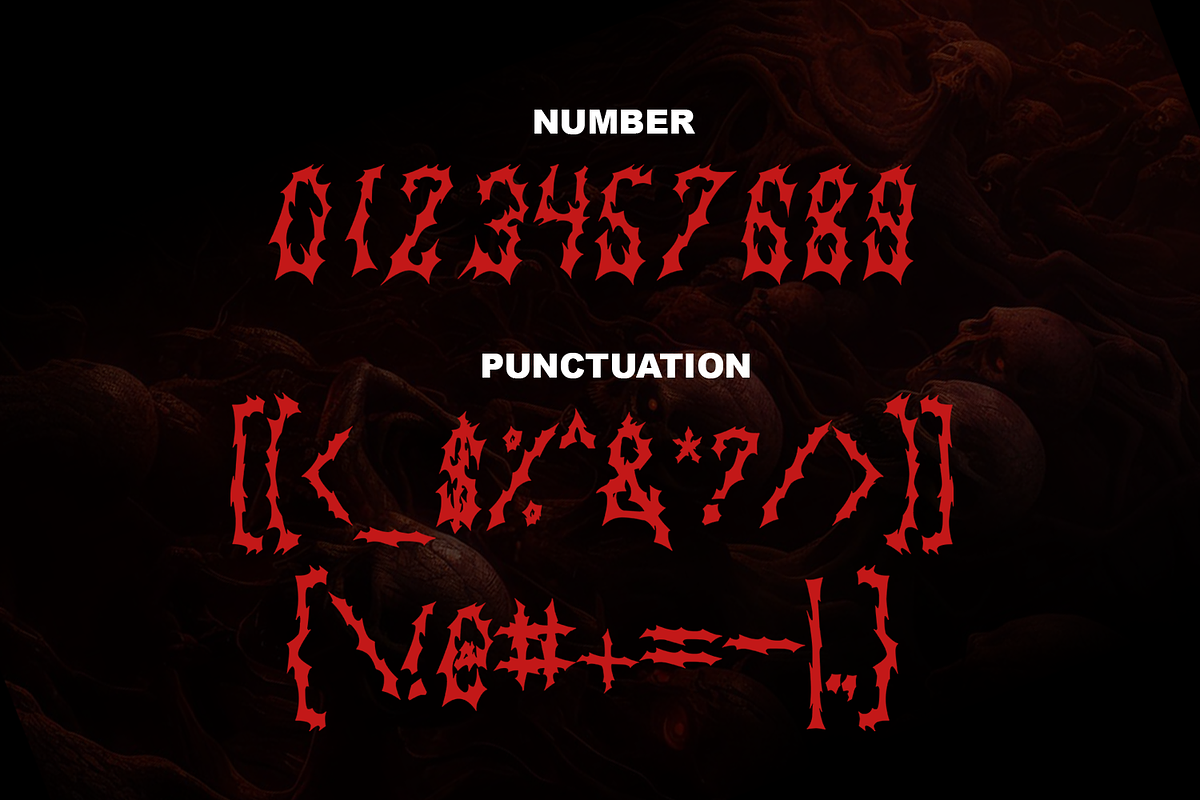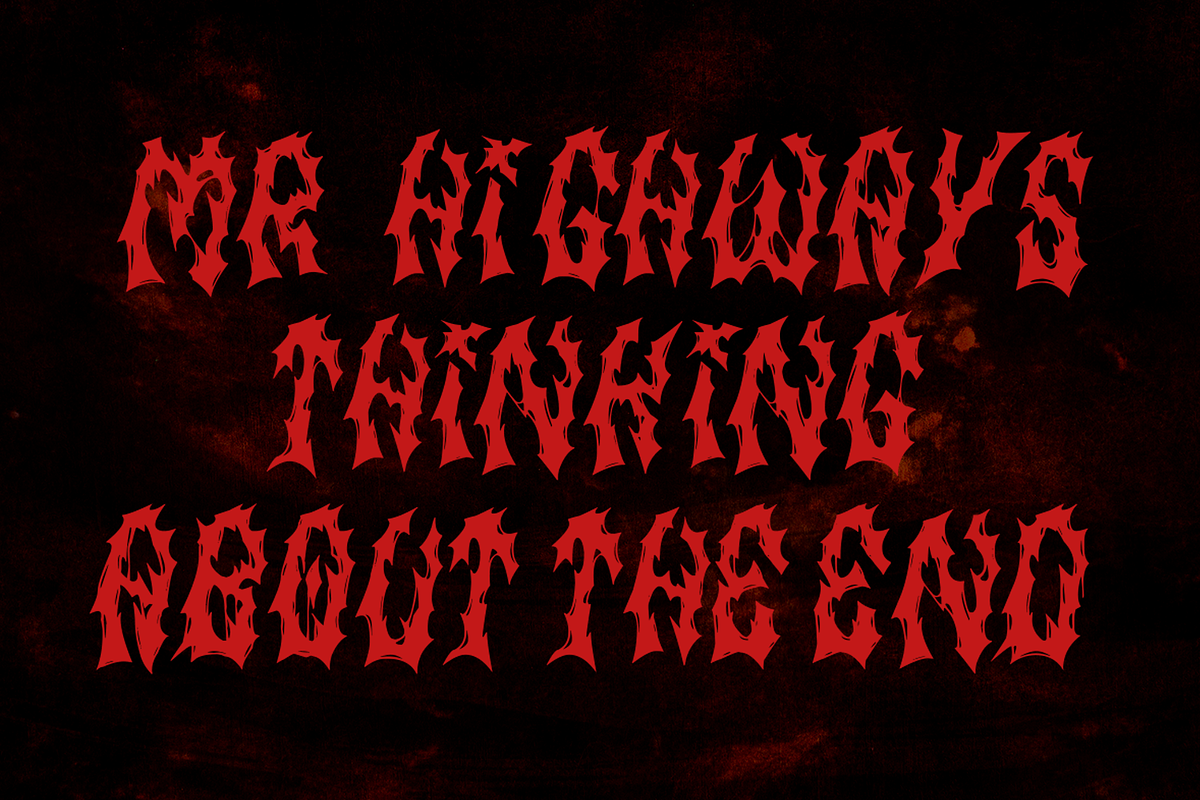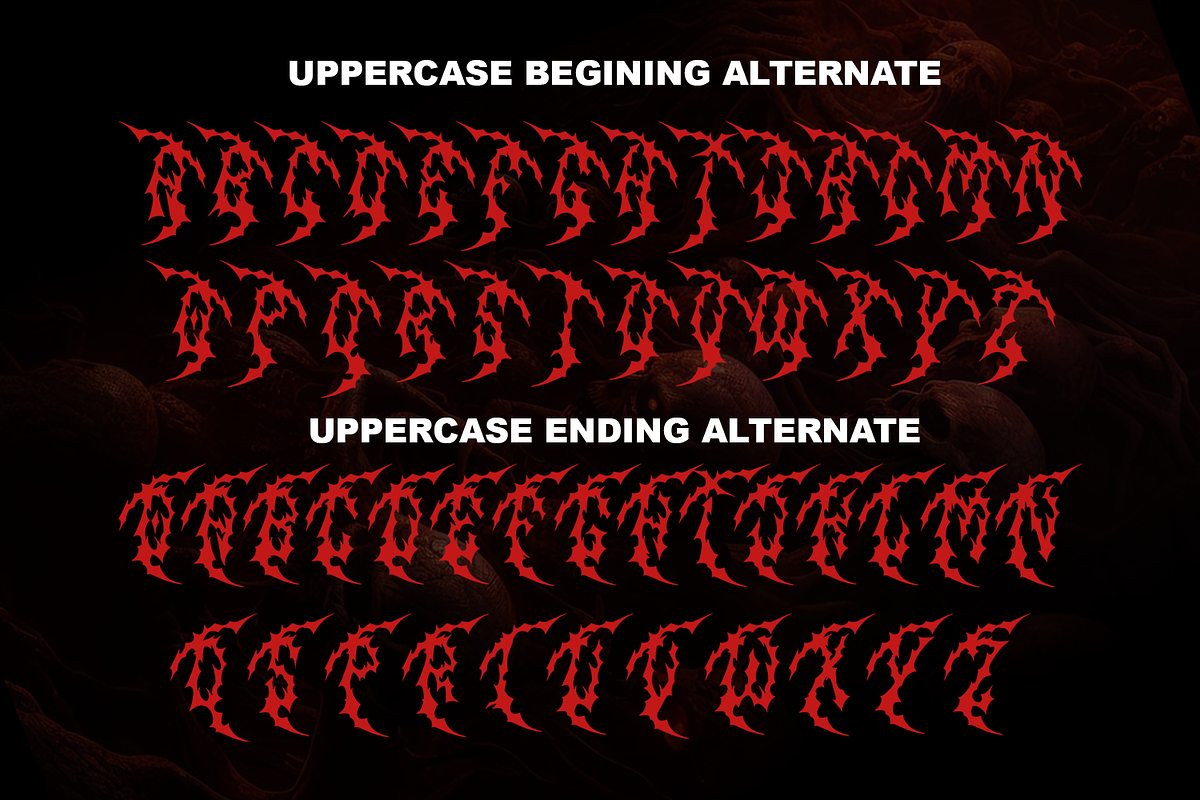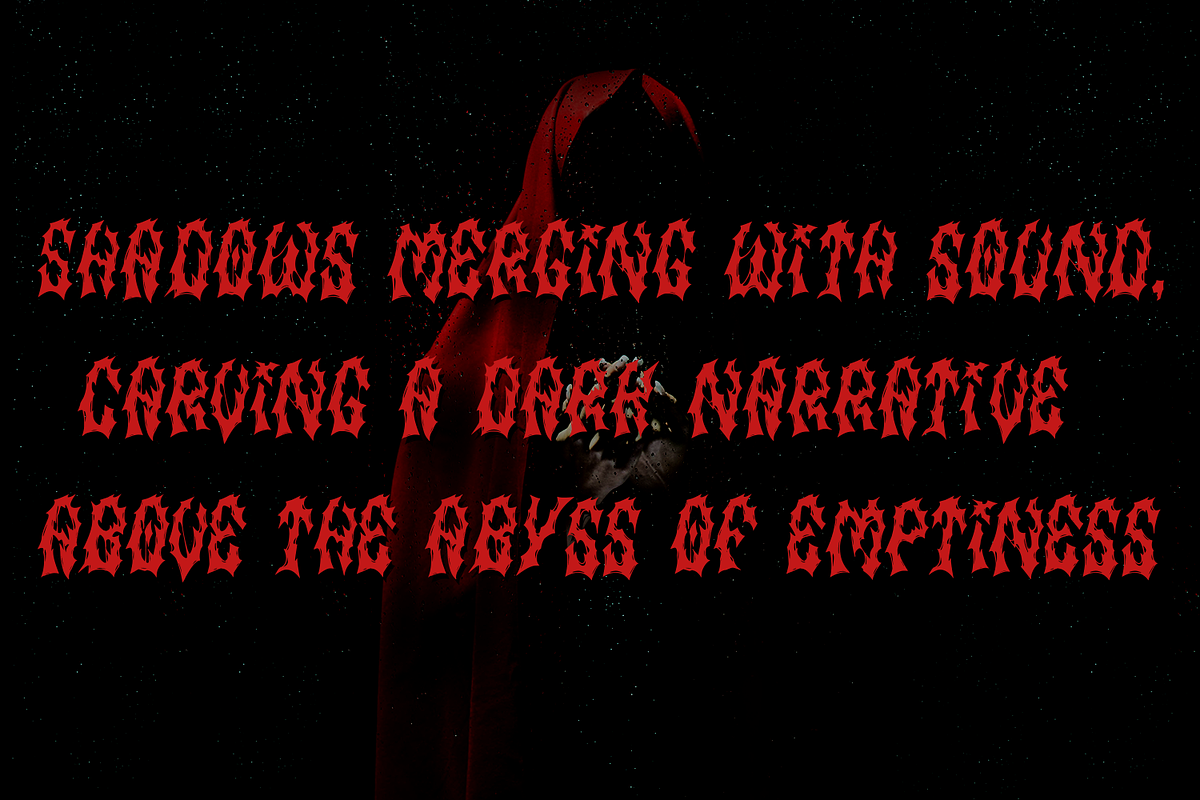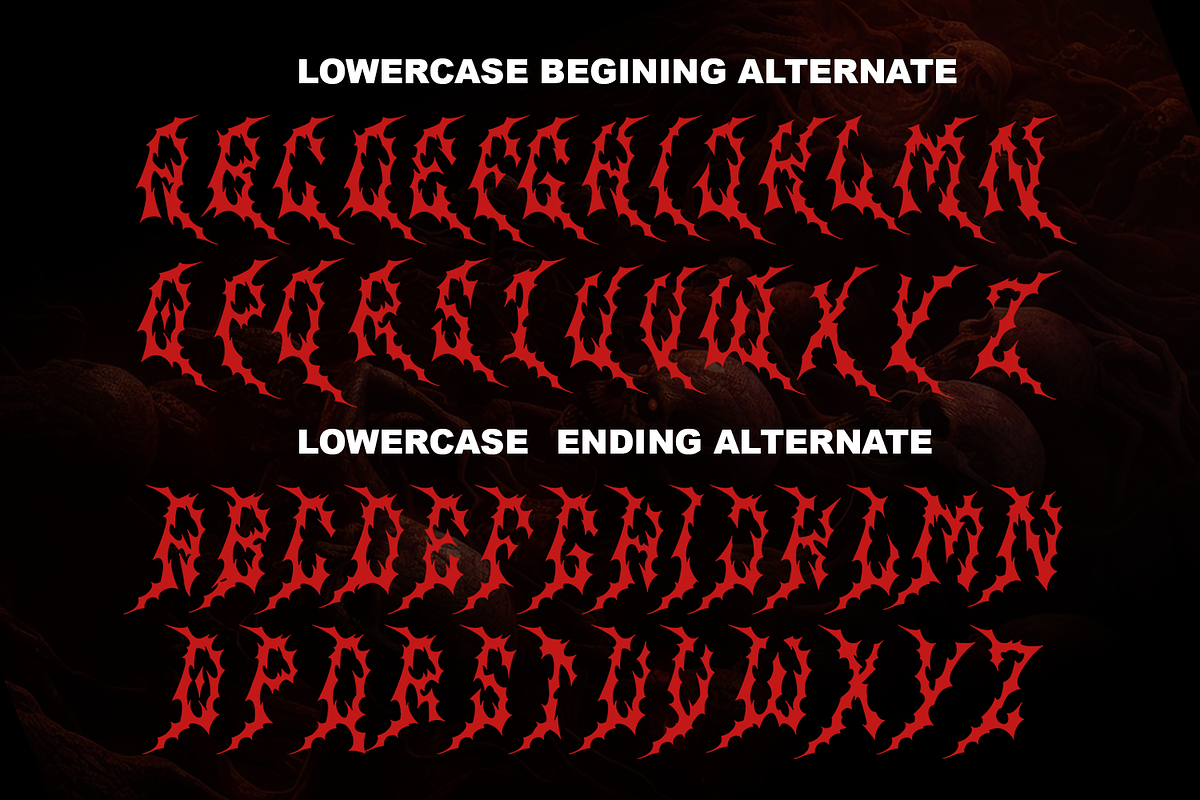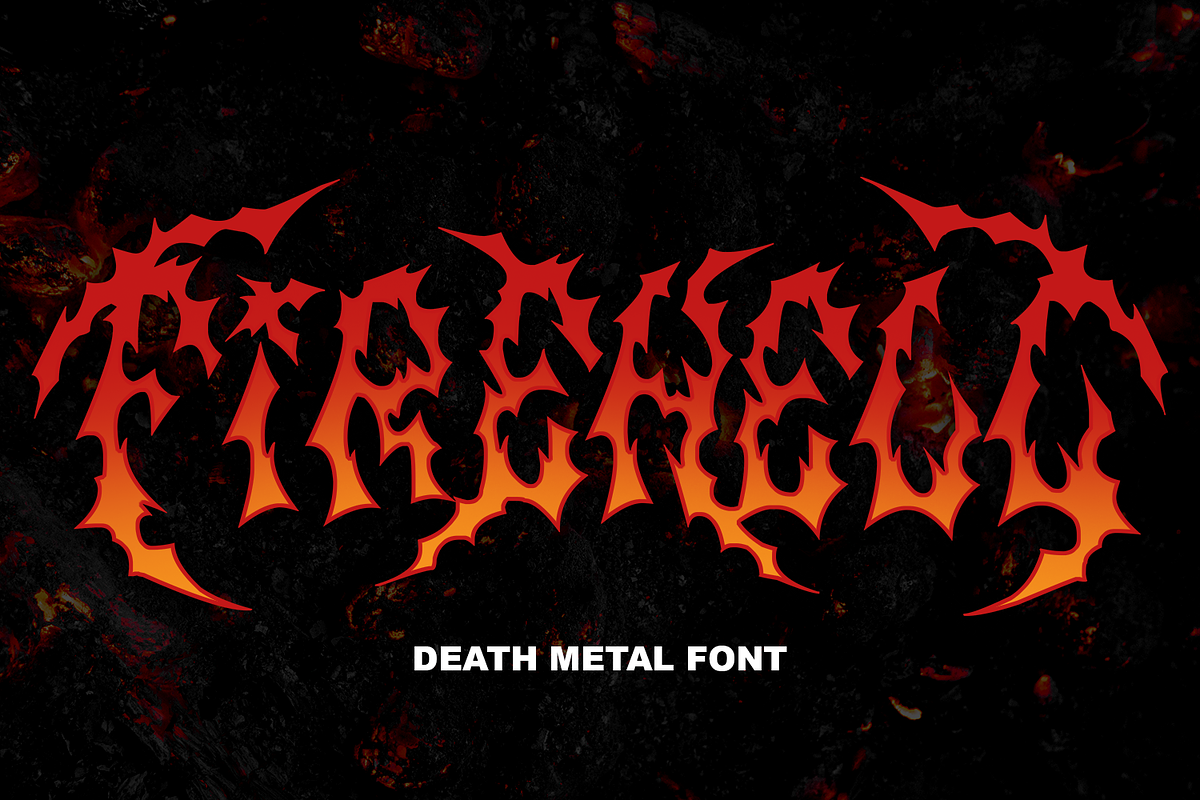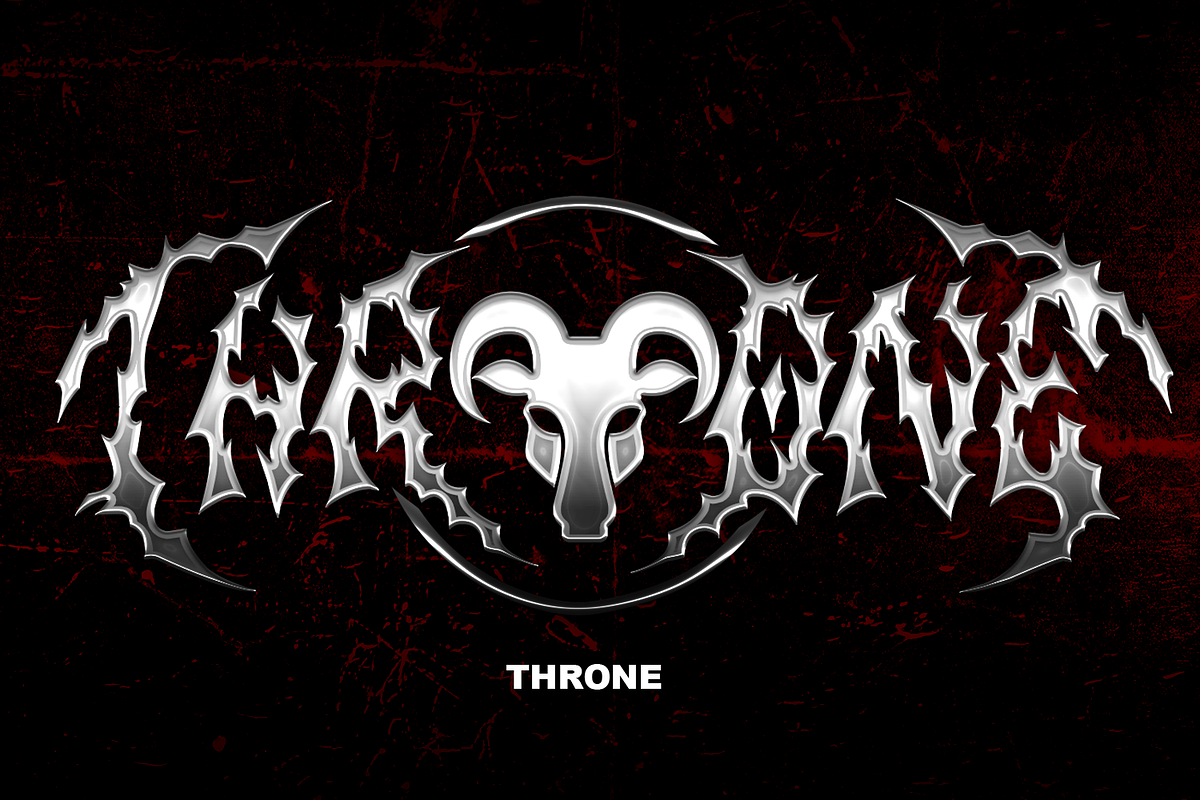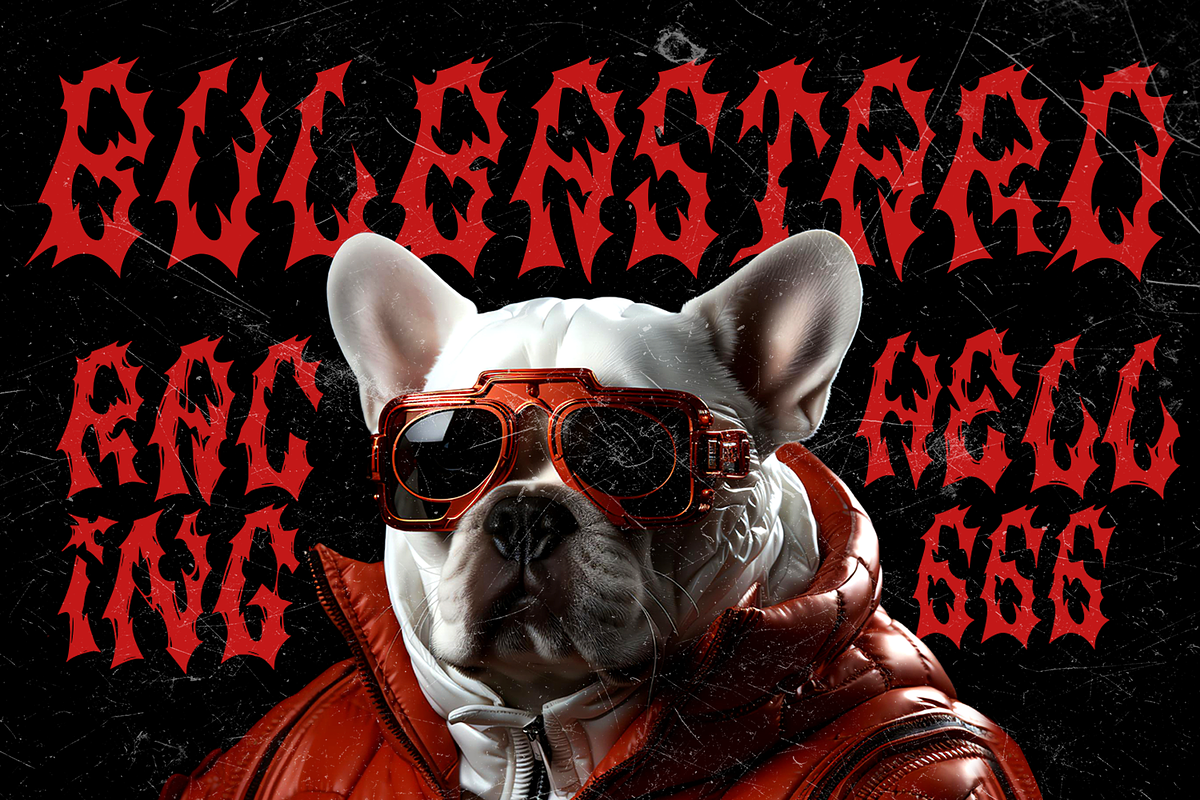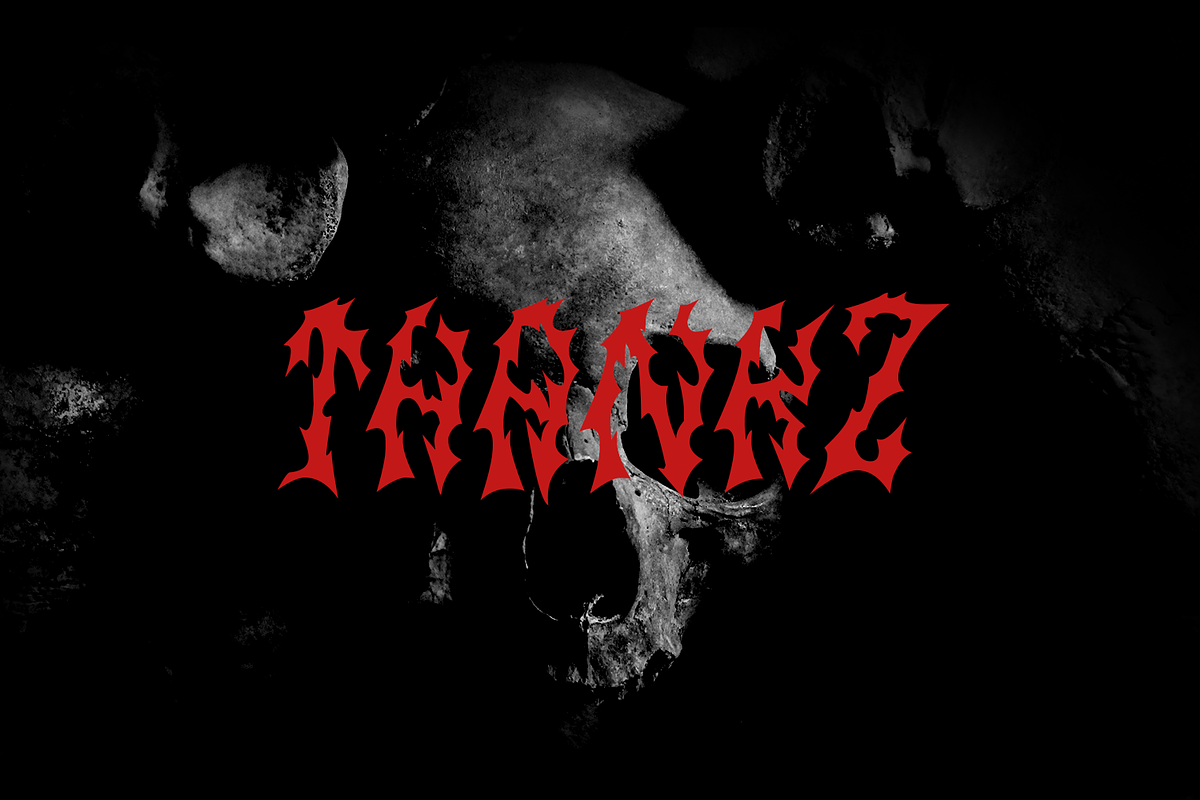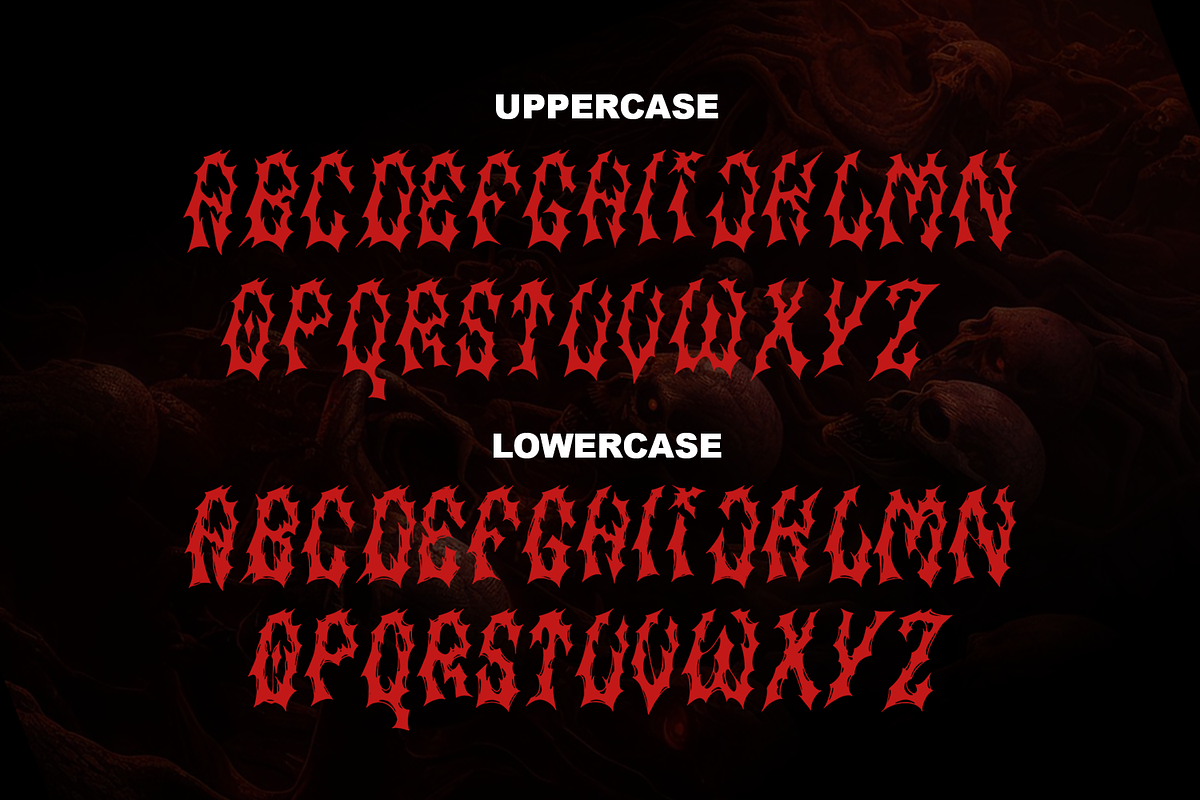
Firehell
Introducing Fire Hell – a fiery font inspired by the intensity of death metal. With flames dancing within each letter, this font is tailor-made for death metal, black metal, gothic, horror, and other heavy music genres. The sharp, angular design adds a touch of darkness, making it the perfect visual companion for bands seeking a fierce and impactful typographic identity. Unleash the power of Fire Hell to set your artwork ablaze and embody the relentless spirit of heavy music. Ignite the darkness with this visually striking font!
Fire Hell features: Allcaps Beginning Uppercase alternate Ending Uppercase alternate Numbers and punctuation PUA Encoded Characters OpenType Features